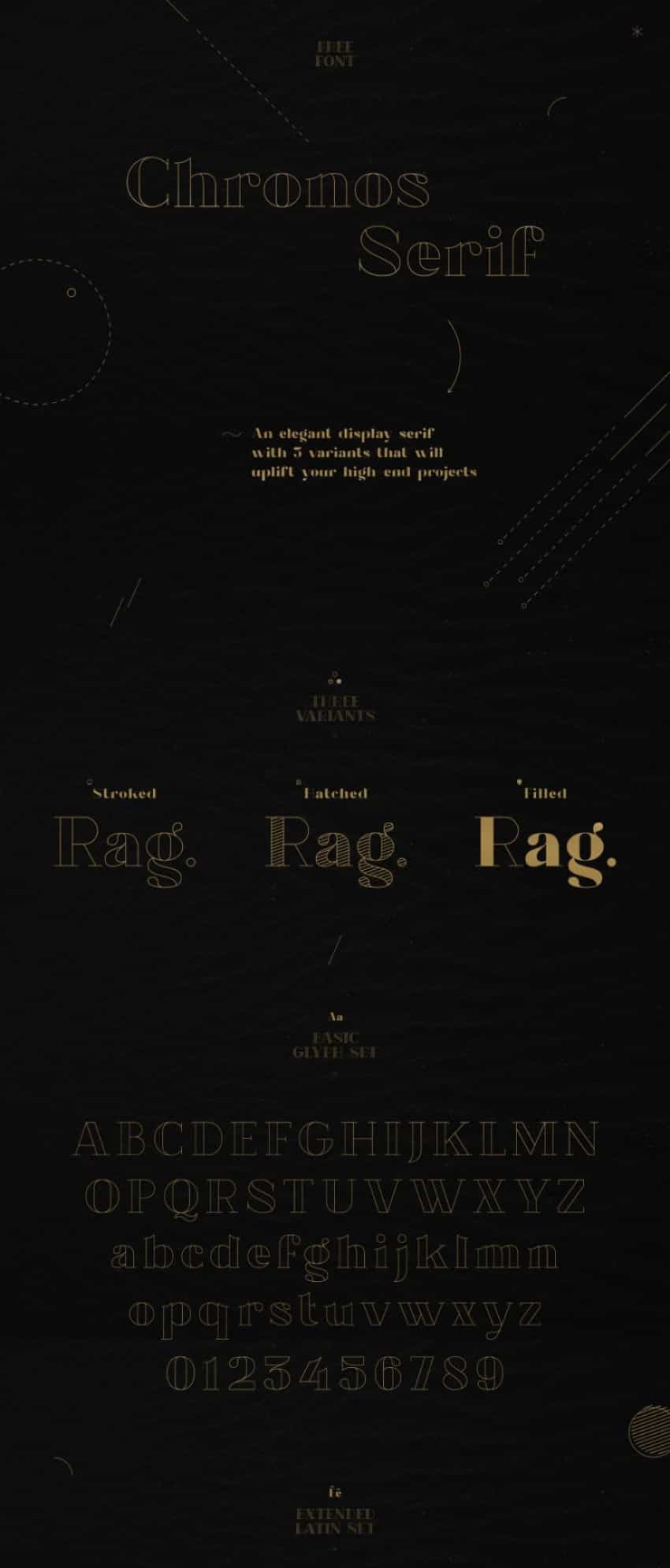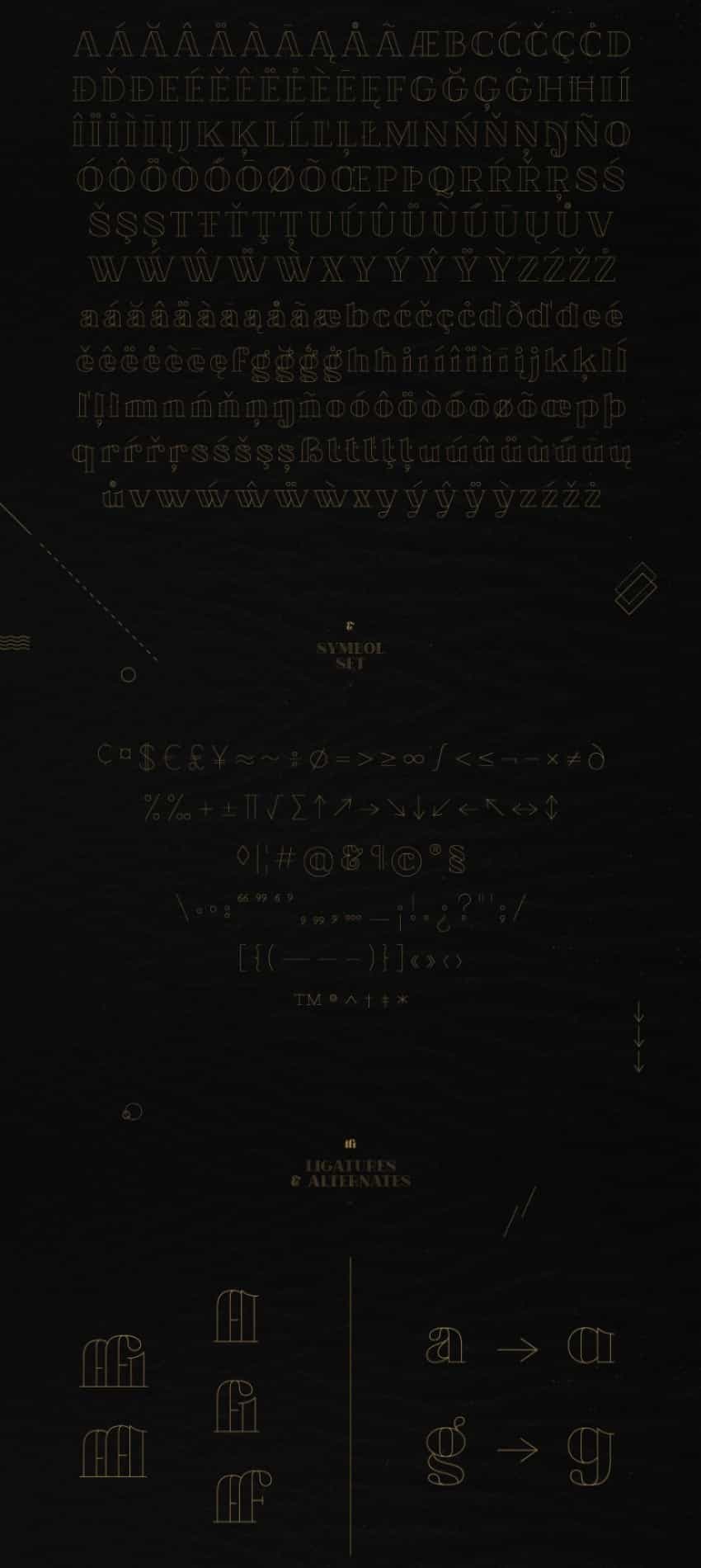
Chronos Serif – The introduction Making a stunning impression through detailing, Chronos Serif offers the users three graceful styles for any luxurious kind of project. This font family aims to provide three different kind of weight, namely Stroked (Filled), Hatched and Filled.